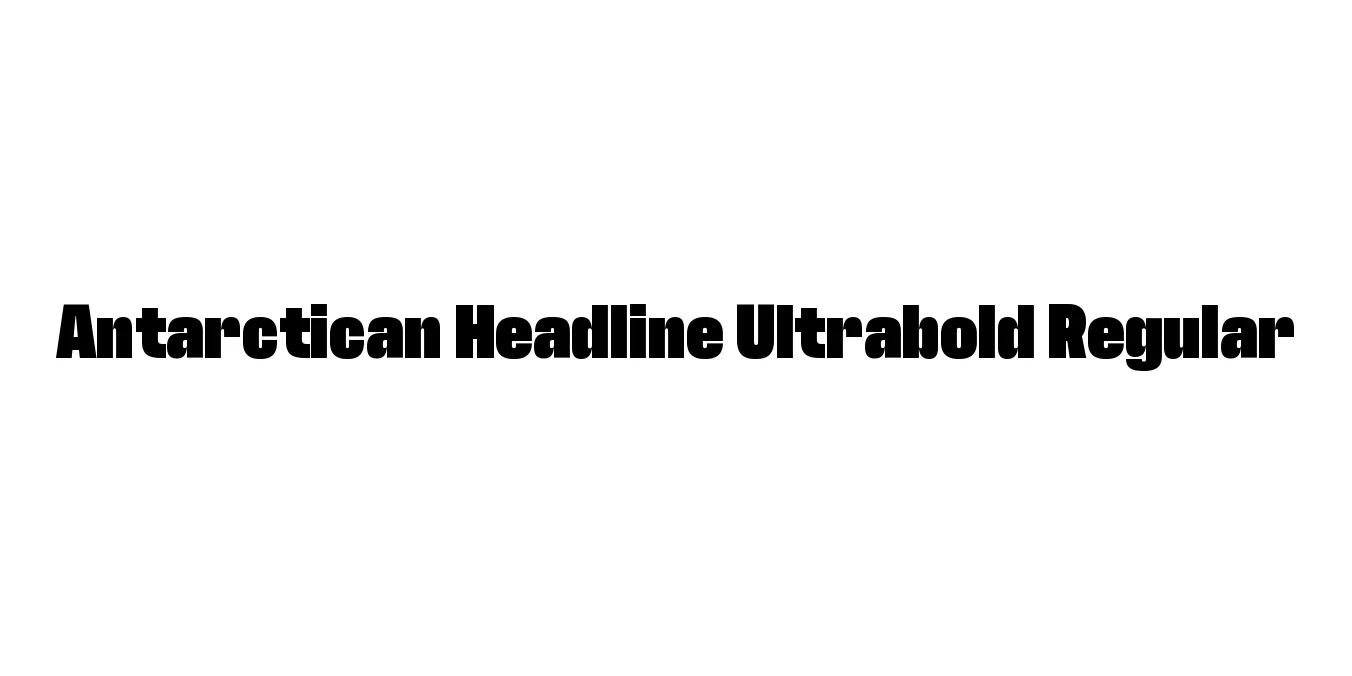
Antarctican Headline Ultrabold Regular
Designed by James Edmondson
| Font Name | Antarctican Headline Ultrabold |
| Designer | James Edmondson |
Antarctican Headline is a robust and high-impact sans-serif typeface designed by James Edmondson for OH no Type Co. It is part of the broader Antarctican superfamily, which explores the tension between mechanical precision and humanistic warmth. The Ultrabold Regular weight is specifically engineered for maximum visibility, featuring tight apertures and thick strokes that command attention in large-scale applications.
Originally inspired by the utilitarian aesthetics of industrial signage and early 20th-century grotesques, the font excels in digital and print media alike. Its Ultrabold variant is characterized by its heavy presence and minimal negative space, making it a favorite for editorial designers looking for a typeface that functions both as a graphic element and a legible communication tool.
Antarctican Headline Ultrabold Regular Best Uses
Perfect for striking magazine covers and large headlines.
Ideal for bold logos that need to convey strength and stability.
Excellent for high-impact billboards and promotional posters.
Great for hero sections where a strong typographic voice is required.